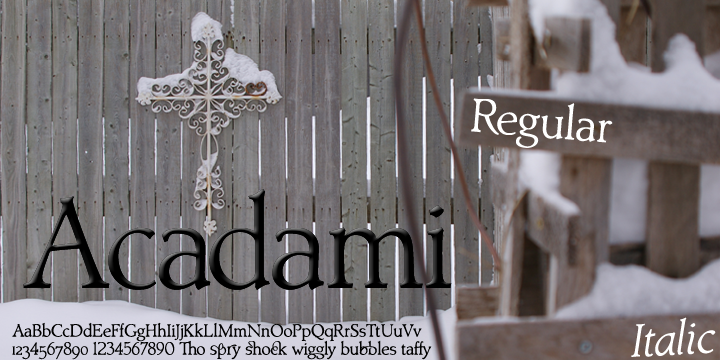
The Acadami Font excels in various design applications including prestigious academic institution branding, scholarly university communications, educational excellence marketing, academic conference materials, research institute identities, scholarly publication layouts, academic achievement documentation, educational foundation promotions, university department signage, and distinguished academic projects that demand scholarly authenticity and intellectual sophistication.
What makes the Acadami Font exciting is its scholarly embodiment of academic excellence and intellectual distinction through letterforms that capture the essence of higher education and the prestigious tradition of scholarly achievement. This typeface demonstrates exceptional intellectual character through carefully crafted letters that suggest the rigorous standards of academic institutions, the scholarly pursuit of knowledge, and the intellectual prestige that makes academic environments so educationally valuable and intellectually inspiring. The font's academic personality makes it perfect for universities and educational institutions seeking to communicate scholarly authenticity, academic excellence, and the kind of intellectual prestige that creates memorable educational experiences through typography that literally educates with academic authority.
The Acadami Font family typically includes scholarly weight variations that enhance the academic aesthetic, featuring intellectual styling options and extended character sets optimized for educational communications and academic applications. These family options often include academic-inspired alternates, scholarly symbols, and intellectual decorative elements that provide designers with comprehensive tools for creating authentically academic typography that celebrates educational excellence while maintaining contemporary design appeal and institutional credibility.
Educational professionals and academic institutions consistently select Acadami Font Free Download for projects requiring typography that communicates academic authenticity and scholarly sophistication. This typeface delivers exceptional performance in educational marketing, academic branding, and scholarly communications where establishing intellectual credibility and creating prestigious academic atmosphere is essential for educational engagement. The font's scholarly character makes it particularly effective for university and research applications. Download Acadami Font Free Download today to access this intellectually distinguished typeface that transforms academic communications with its scholarly elegance and educational sophistication, creating compelling academic experiences that honor the magnificent tradition of higher education while celebrating the intellectual excellence that defines authentic academic culture and scholarly achievement.